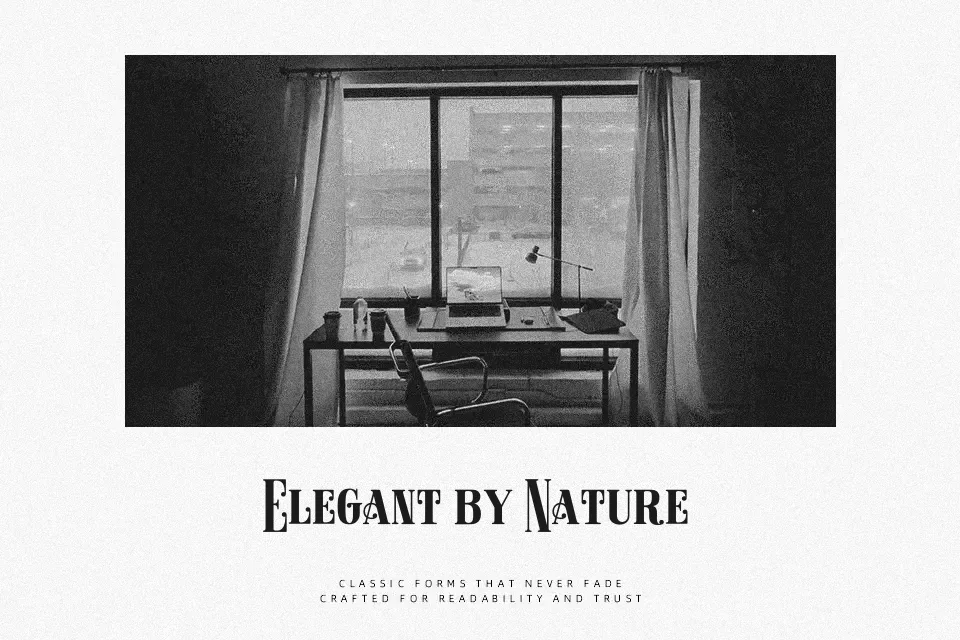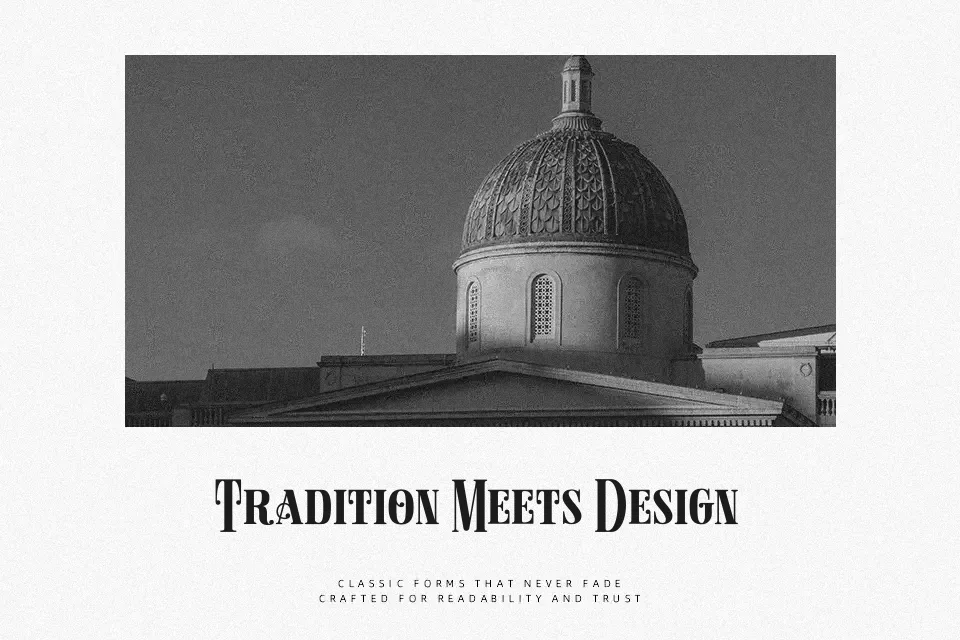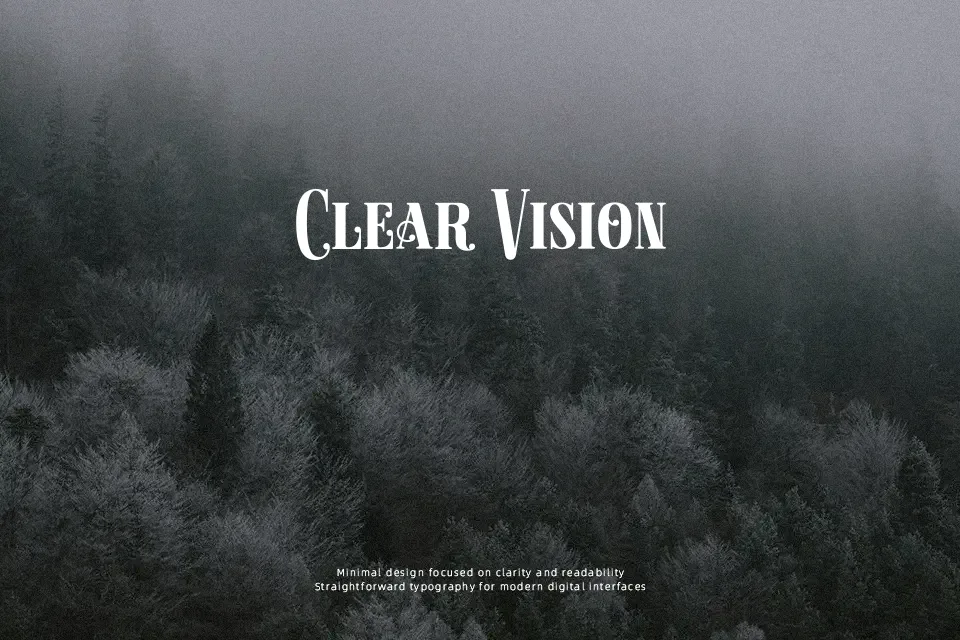
Sarcastic Nova Font
Sarcastic Nova Font showcases prominent retro serifs with pronounced stroke contrast and sweeping, decorative curves. The letterforms feature sharp bracketed terminals, a compact visual rhythm, and balanced uppercase proportions that command attention in display settings. While the design delivers strong personality in poster headers and product labeling, the intricate stylistic detailing and heavy contrast reduce clarity in dense reading environments. Consequently, the typeface performs at its best when given ample breathing room at larger scale, whereas continuous body text and miniature captions compromise its legibility.
vintage shop signage,craft beer packaging,apparel graphics,music poster headlines
continuous body text,mobile interface labels,technical documentation,dense book paragraphs